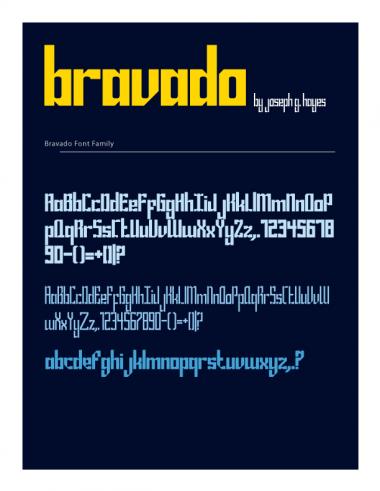
Beautiful font, I gave you 10, in spite of some x-height irregularities with the f and the ? I'm not fond of.
Thanks! I hope I've fixed the irregularities. I intend to complete the font, including most all common characters if possible.
Caps and numbers are now included.
Still a little something here, but it might be intentional :
Completely redesigned the "?". Tell me what you think.
The new ? is just fine. It's now brought into line with the lowercases, and thanks to this the loop is wider. But it seems that you set the small horizontal bar of the f higher than before. It's a bit odd, all the more you made it a descending glyph, because it looks like the letter is hanging above the baseline, and in small size you may confuse it with a p.
i like this one a lot. it has a nice look when sample text is viewed and it is also very attractive and crafted well. it has a modern feel being modular with a hint of blackletter with your use of angles. the entire family is remarkable.
Thanks for all of the feedback. I believe I've made all of the necessary changes. Anything else?
A nice set - from a good family :)
Bravado block and block thin in action.